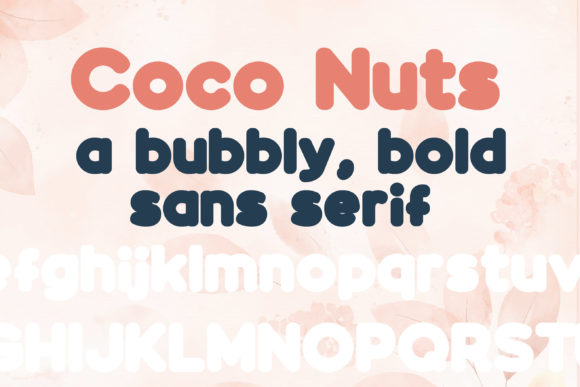
Behold the Coco Nuts Font: A Playful Sans Serif Creation by Illustration Ink
Immerse yourself in the world of Coco Nuts, a captivating display sans serif font that embodies joy and exuberance. This remarkable creation from Illustration Ink brings a playful touch to any design, transforming words into vibrant expressions of personality. With its bold, rounded characters and cheerful demeanor, Coco Nuts is the perfect font for adding a dash of whimsy and fun to your creative projects.
Coco Nuts Font: A Symphony of Bold Strokes and Playful Curves
Every stroke of the Coco Nuts font exudes confidence and playfulness. Its bold, rounded characters dance across the page, creating a visual rhythm that is both energetic and captivating. The unique shapes of each letter add a touch of whimsy, making Coco Nuts the perfect choice for capturing attention and making a lasting impression.
Let Coco Nuts Unlock Your Creative Potential
With Coco Nuts, the possibilities are endless. Its versatility shines across various designs, from playful logos and eye-catching headlines to vibrant social media posts and delightful invitations. Coco Nuts brings a spark of joy and creativity to any project, transforming ordinary words into extraordinary expressions. Whether you're a seasoned designer or a creative enthusiast, Coco Nuts is the perfect font to ignite your imagination and bring your visions to life.
Coco Nuts Font: Your Gateway to a World of Joy and Expression
With every character of the Coco Nuts font, you'll discover a world of limitless creative potential. Its bold and playful nature invites you to experiment, to push boundaries, and to create designs that are uniquely yours. Coco Nuts is more than just a font; it's a gateway to a world of joy, expression, and boundless creativity.
Let Coco Nuts Be Your Creative Companion
Join the countless designers and creatives who have embraced the magic of the Coco Nuts font. Experience the joy of creating designs that burst with personality and captivate audiences. Coco Nuts is not just a font; it's an invitation to unleash your creativity, to explore the limitless possibilities of design, and to make a lasting impression on the world.
Coco Nuts Font: A Font That Inspires, Delights, and Endures
With Coco Nuts, you'll discover a font that goes beyond mere aesthetics. Its playful spirit and bold strokes inspire creativity, while its versatility and charm delight audiences of all ages. Coco Nuts is a font that endures, leaving a lasting impression long after the ink has dried.